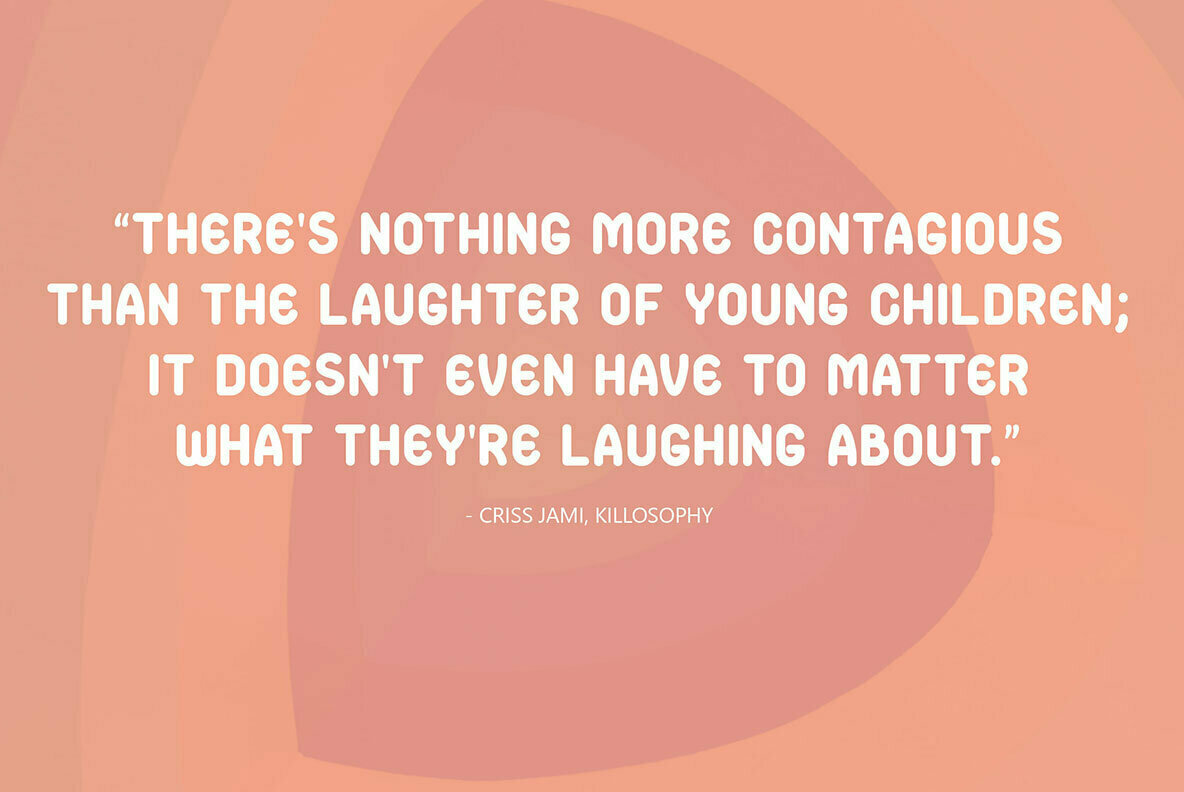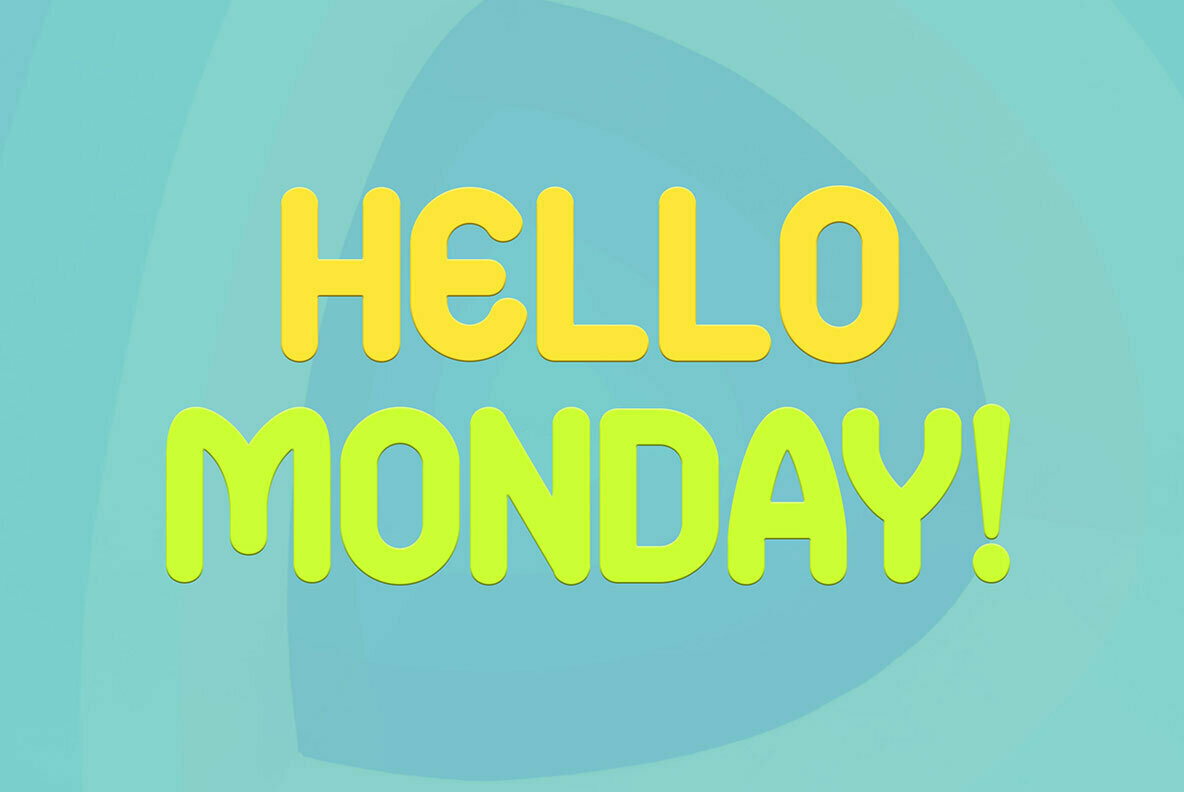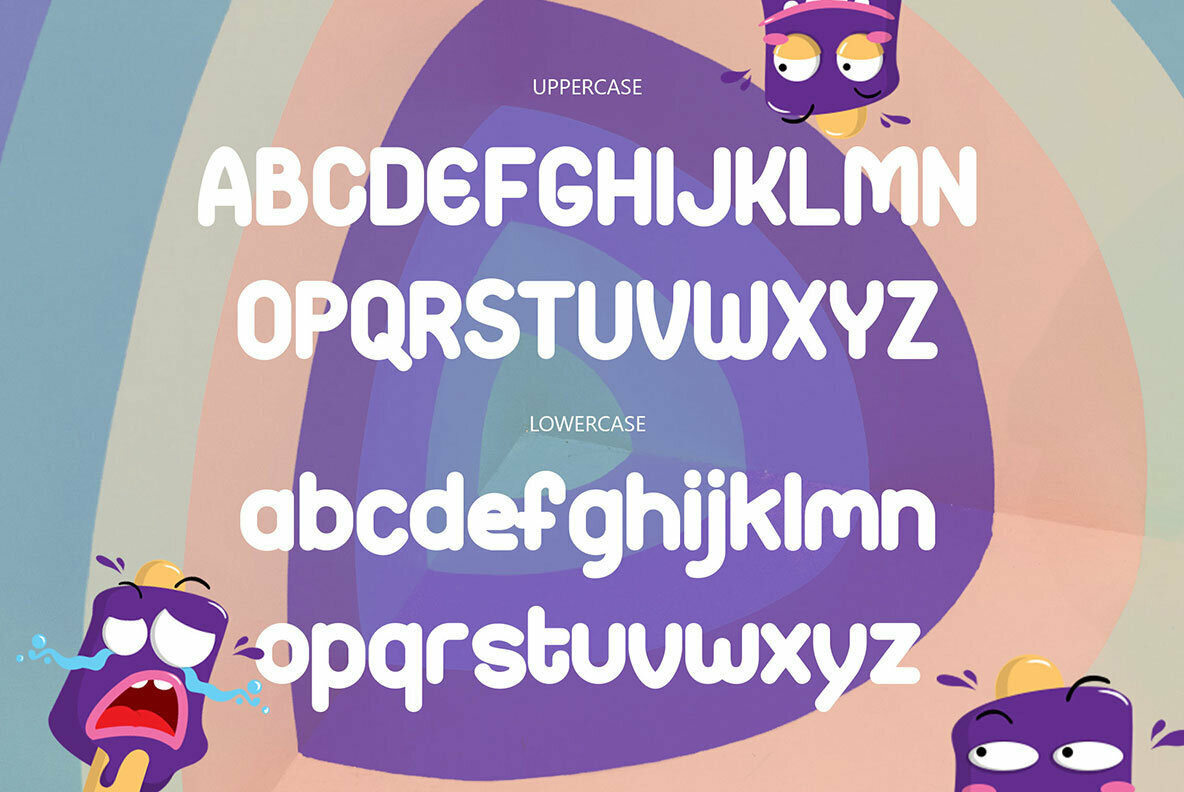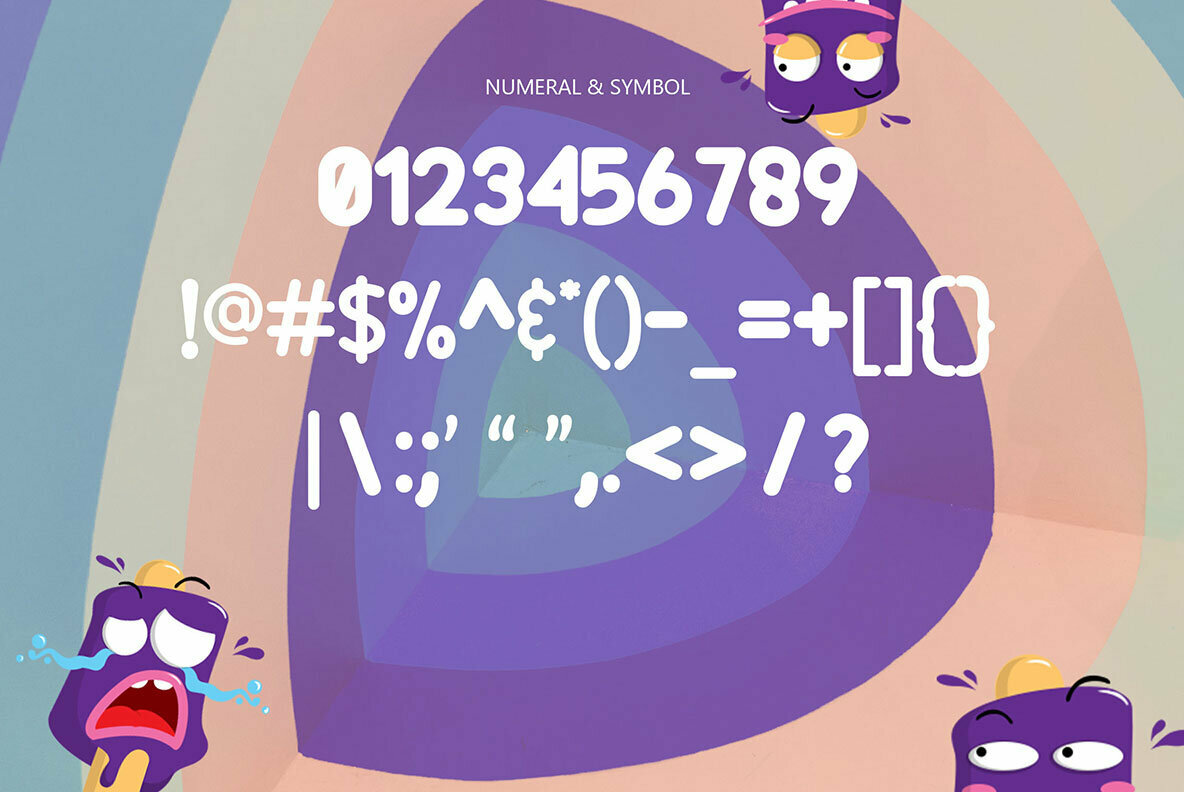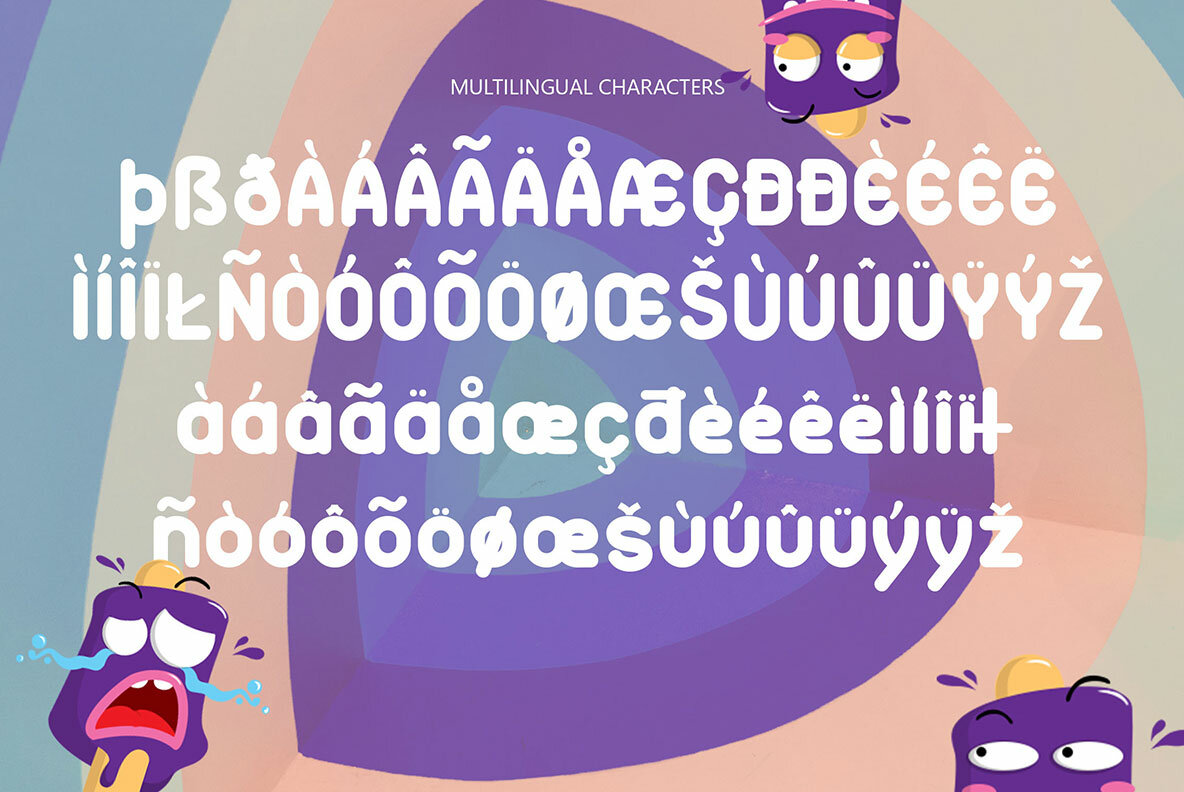
Caress Font
Caress
Embrace a sense of whimsy with Caress, a vibrant handwritten sans serif that exudes fun and creativity. Ideal for projects with a playful theme, Caress combines a cartoonish charm with a contemporary edge, making it perfect for capturing the imagination in children’s books, playful branding, and more.Caress: A Playful Handwritten Sans Serif